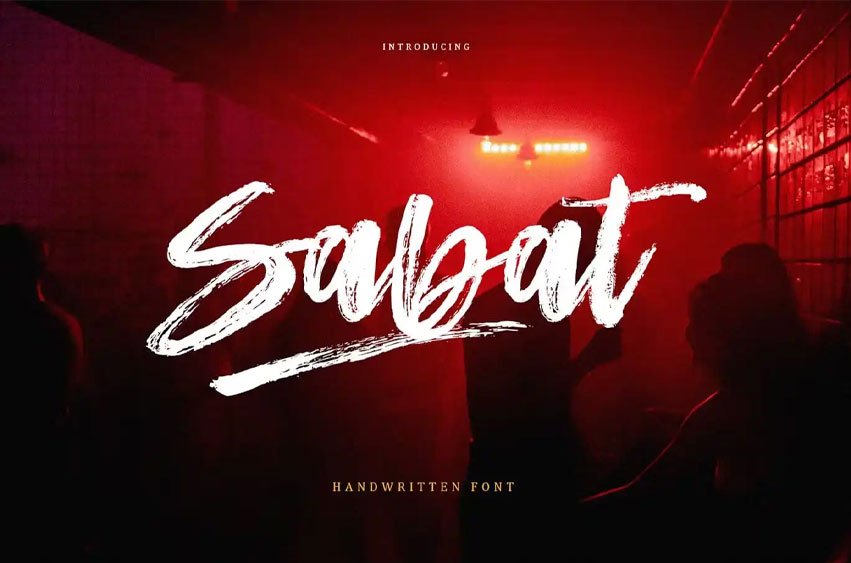
Sabat Font Brush is a handmade font written with a real brush pen. Written with quick movements using a brush pen. It’s Handwritten with quick dry strokes. Suitable for those who need a font with real textures.